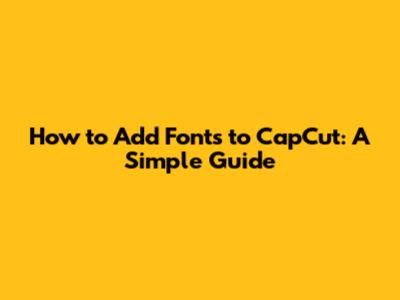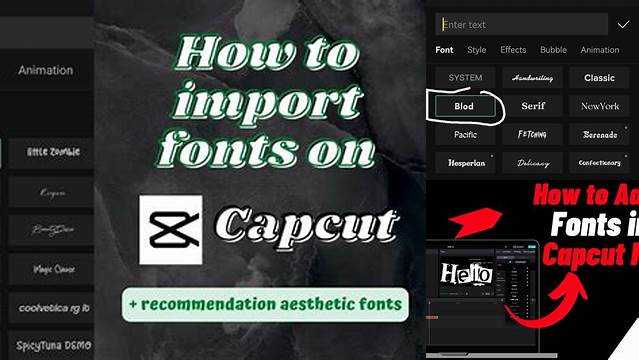
Add Fonts To CapCut: A Simple Guide
Hey guys! Ever felt like your CapCut videos are missing that special something? Well, chances are, it might just be the fonts you're using! Fonts play a huge role in setting the tone and style of your video. Imagine using a playful, bubbly font for a serious documentary – wouldn't quite fit, right? That's why knowing how to add fonts in CapCut is a total game-changer. It opens up a whole new world of creative possibilities, allowing you to truly personalize your projects and make them stand out. In this guide, we’re going to dive deep into everything you need to know about adding fonts to CapCut, from the built-in options to importing your own custom styles. So, let's get started and make your videos look amazing!
Understanding the Importance of Fonts in Video Editing
Let’s talk fonts! You might think, “It’s just text, right?” But trust me, fonts are super important in video editing. They’re not just about displaying words; they’re about conveying emotions, setting the mood, and reinforcing your message. Think of it like this: the right font can make your video feel professional, fun, serious, or even a little bit quirky – whatever vibe you’re going for. Choosing the right font is like picking the perfect outfit for an occasion; it needs to match the overall style and purpose. For example, a sleek, modern font might be perfect for a tech review, while a handwritten-style font could add a personal touch to a travel vlog. So, before you even start adding fonts, take a moment to consider what kind of feel you want your video to have. This will help you narrow down your options and make sure your text is working with your visuals, not against them. Remember, good typography can elevate your video from good to great!
When you’re thinking about fonts, consider a few things. Readability is key, of course. There’s no point in using a super fancy font if nobody can actually read what it says! Think about the size and spacing too. Is the text easy to read on a small screen? Does it stand out against the background? Color is another big one. A bright, bold color can grab attention, but it might be too distracting if it clashes with your video’s visuals. On the other hand, a subtle color might blend in too much. And don’t forget about consistency! Stick to a limited number of fonts (usually two or three at most) to keep your video looking polished and professional. Mixing too many fonts can make your video feel cluttered and confusing. So, take your time, experiment with different options, and find the fonts that best represent your brand and message. Trust me, the effort is worth it!
Exploring CapCut's Built-In Font Library
Okay, let's dive into CapCut itself! One of the coolest things about CapCut is that it comes with a bunch of built-in fonts right at your fingertips. You don’t need to go hunting around the internet for anything; there’s a solid selection ready to use right away. This is awesome because it means you can start experimenting and getting creative without any extra hassle. The built-in library includes a variety of styles, from classic and clean to more modern and playful. You’ll find fonts that are perfect for titles, captions, lower thirds, and all sorts of other text elements. Whether you’re making a vlog, a tutorial, a promotional video, or anything in between, there’s likely to be something in the library that fits your needs. So, before you start thinking about importing custom fonts, take some time to explore what CapCut already offers. You might be surprised at how much you can do with the built-in options!
To access the built-in fonts, just open up a project in CapCut and add a text layer. You’ll see a font menu pop up, and you can start scrolling through the options. CapCut makes it super easy to preview the fonts in real-time, so you can see how they look with your video before you commit to anything. You can also adjust the size, color, spacing, and other properties of the text right there in the editor. This is where you can really start to personalize your text and make it your own. Don’t be afraid to try out different combinations and see what works best. Play around with bold and italics, add shadows or outlines, and tweak the alignment until you’re happy with the result. And remember, you can always change your mind later, so there’s no pressure to get it perfect right away. The key is to have fun and discover the fonts that speak to you and your style.
Step-by-Step Guide: Adding Text and Changing Fonts in CapCut
Alright, let’s get practical! I'm going to walk you through the step-by-step process of adding text and changing fonts in CapCut. It’s actually super easy, even if you’re a complete beginner. First things first, fire up CapCut and open the project you’re working on. If you’re starting from scratch, tap the “New Project” button and select the video clips or photos you want to use. Once your project is open, you’ll see a timeline at the bottom of the screen. This is where you’ll be doing most of your editing.
To add text, look for the “Text” option in the toolbar at the bottom. Tap it, and you’ll see a few different options pop up, like “Add Text,” “Text Templates,” and “Stickers.” For now, let’s just go with “Add Text.” Tap that, and you’ll see a default text box appear on your screen. Now, you can type in whatever you want your text to say. This could be a title, a caption, a call to action, or anything else. Once you’ve got your text typed in, it’s time to play around with the font. Look for the font menu, which should be right there in the text editing panel. You’ll see a list of fonts to choose from, and you can scroll through them to preview them in real-time. When you find one you like, just tap it, and your text will instantly update. See? Easy peasy!
But we’re not done yet! You can also customize the font even further. In the text editing panel, you’ll find options to change the size, color, style (like bold or italics), alignment, and even add things like shadows or outlines. Play around with these settings until your text looks exactly the way you want it to. You can also adjust the position and duration of the text on the screen by dragging it around in the preview window or adjusting the handles on the timeline. This is super useful for making sure your text appears at the right time and stays on screen for the right amount of time. And don’t forget, you can always add multiple text layers to your video if you need to. Just repeat the steps above to add more text boxes and customize them individually. Experiment, have fun, and make your text truly stand out!
Importing Custom Fonts into CapCut: A Creative Boost
Okay, guys, ready to take your CapCut game to the next level? While the built-in fonts are great, sometimes you need something a little more… you. That’s where importing custom fonts comes in! This is a fantastic way to add a unique touch to your videos and really make them stand out. Think about it: you can use fonts that match your brand, your personality, or the specific vibe of your video. It’s like adding a secret ingredient that makes everything taste better (or in this case, look better!). Importing fonts into CapCut is surprisingly easy, but there are a few things you need to know.
First, you’ll need to find some custom fonts that you love. There are tons of websites out there that offer free and paid fonts, like Google Fonts, DaFont, and Adobe Fonts. Browse around and find some fonts that catch your eye. Make sure they’re compatible with your device (usually TTF or OTF files are the way to go). Once you’ve downloaded your fonts, you’ll need to get them onto your device. If you’re using CapCut on your phone or tablet, you can usually just save the font files to your device’s storage. If you’re using CapCut on your computer, you might need to install the fonts on your system first. This usually involves double-clicking the font file and following the installation instructions. Now, here’s the slightly tricky part: importing the fonts into CapCut. The process can vary a bit depending on your device and version of CapCut, but generally, you’ll need to go to the text editing panel, look for an option like “Import Font” or “Custom Fonts,” and then navigate to the folder where you saved your font files. Once you’ve imported the fonts, they should appear in your font list, ready to use in your projects. How cool is that?
Don't be afraid to experiment and try new things. The world of fonts is vast and exciting, and there's always something new to discover. Play around with different styles, sizes, colors, and combinations until you find what works best for you. And most importantly, have fun! Video editing should be a creative and enjoyable process, and adding custom fonts is just one more way to unleash your imagination. So go out there, create amazing videos, and let your fonts do the talking!